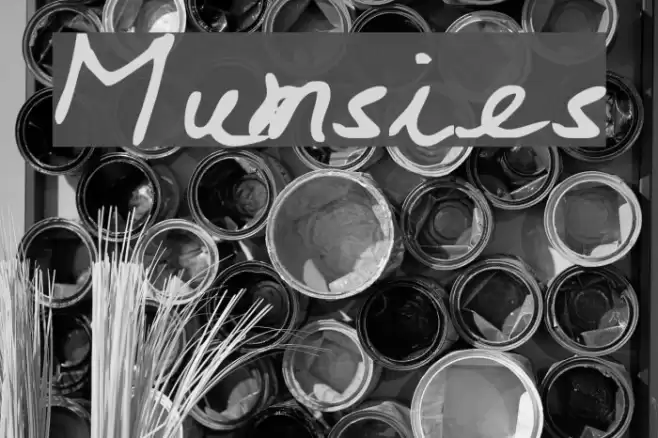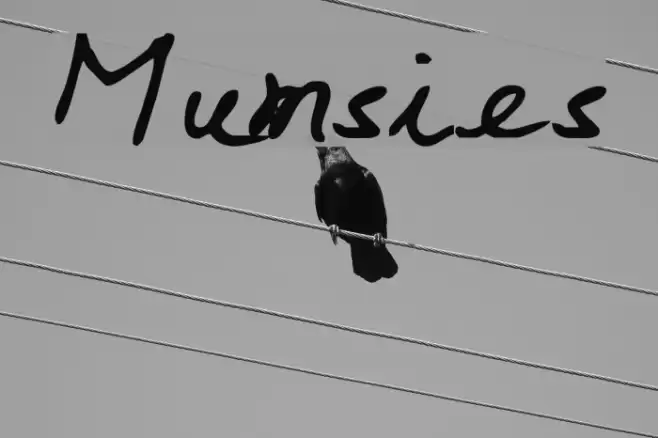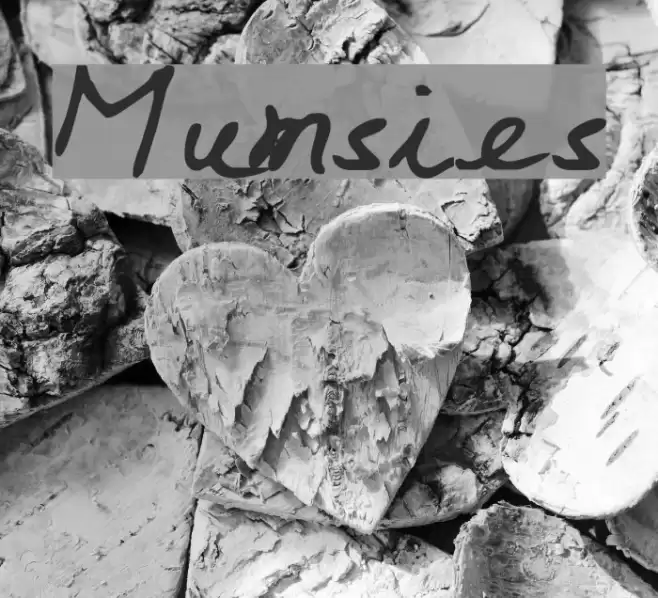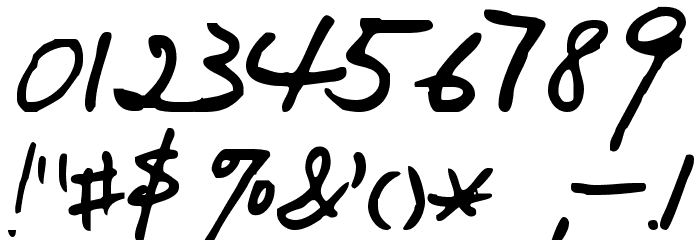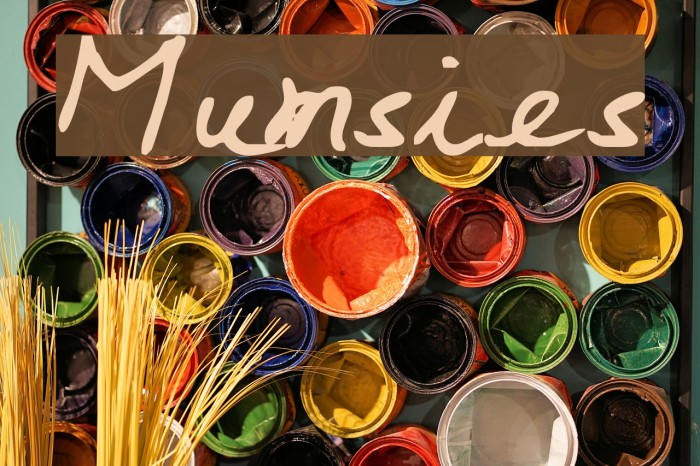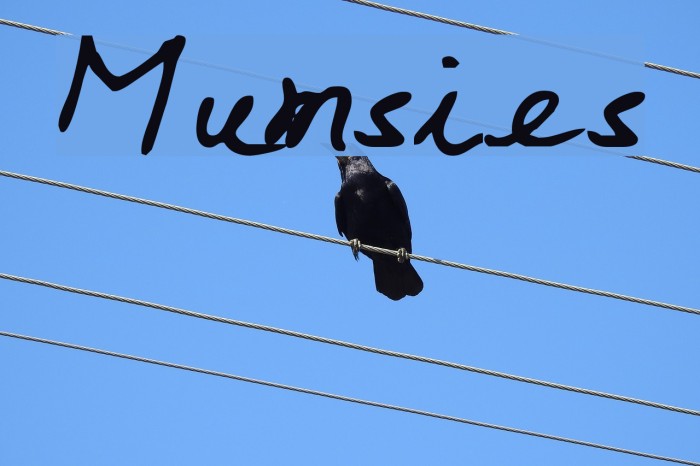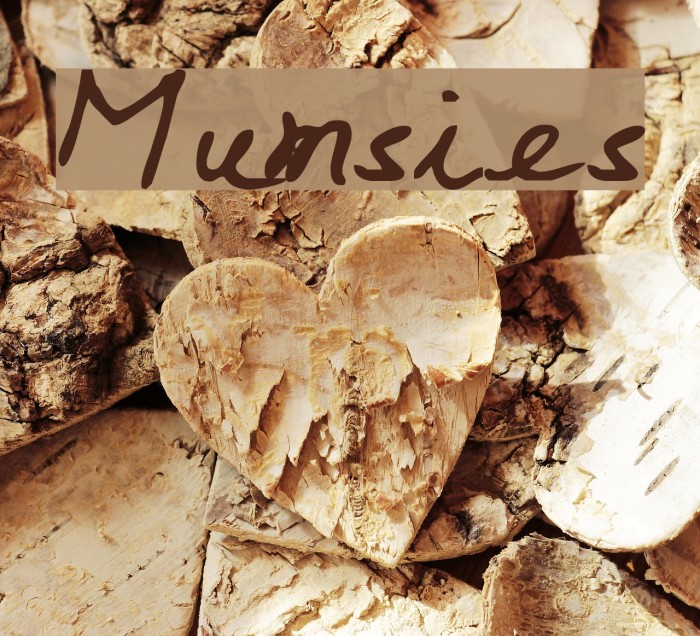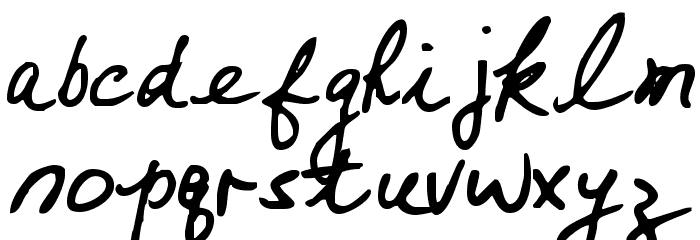
Mumsies Font
Mumsies Description
This font exudes a casual and personal touch, reminiscent of handwritten notes. The letters are slightly slanted, with a fluid and organic flow that suggests a sense of spontaneity and warmth. The uppercase letters maintain a consistent height, while the lowercase letters vary slightly, adding to the informal feel. The numbers are bold and clear, ensuring readability. Special characters are distinct and maintain the same playful style. Overall, this font captures the essence of a relaxed, handwritten script, making it ideal for projects that require a personal or informal tone.
A casual, handwritten-style font with a warm and personal touch from Handwritten fonts.
- Proposed Projects: Ideal for personal notes, invitations, greeting cards, and creative projects that require a human touch.
- Overall Style: Casual
- Use Case: Invitations, Greeting cards, Personal notes